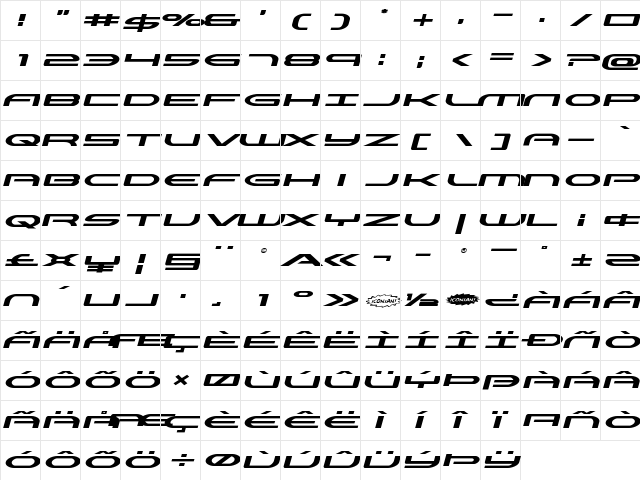
Antietam Extra-Expanded Italic Extra-Expanded Italic
Design Context for Antietam Extra-Expanded Italic Typeface
Antietam Extra-Expanded Italic offers clean, dependable letterforms without strong stylistic allegiance, making it a practical choice for designers who need flexibility. The dynamic lean of this cut emphasises speed and emphasis in any layout.
Pro Tip: Try Antietam Extra-Expanded Italic for annotation and caption copy alongside an upright companion — the contrast in angle creates a dynamic but ordered typographic system.